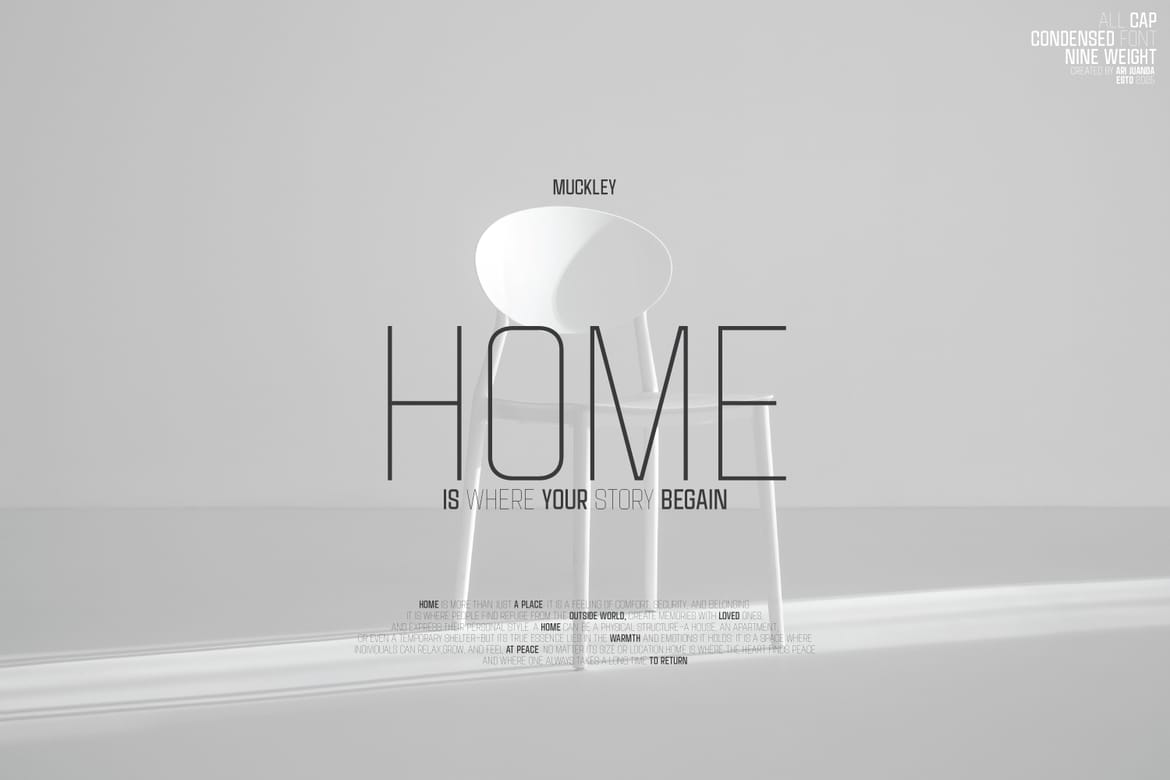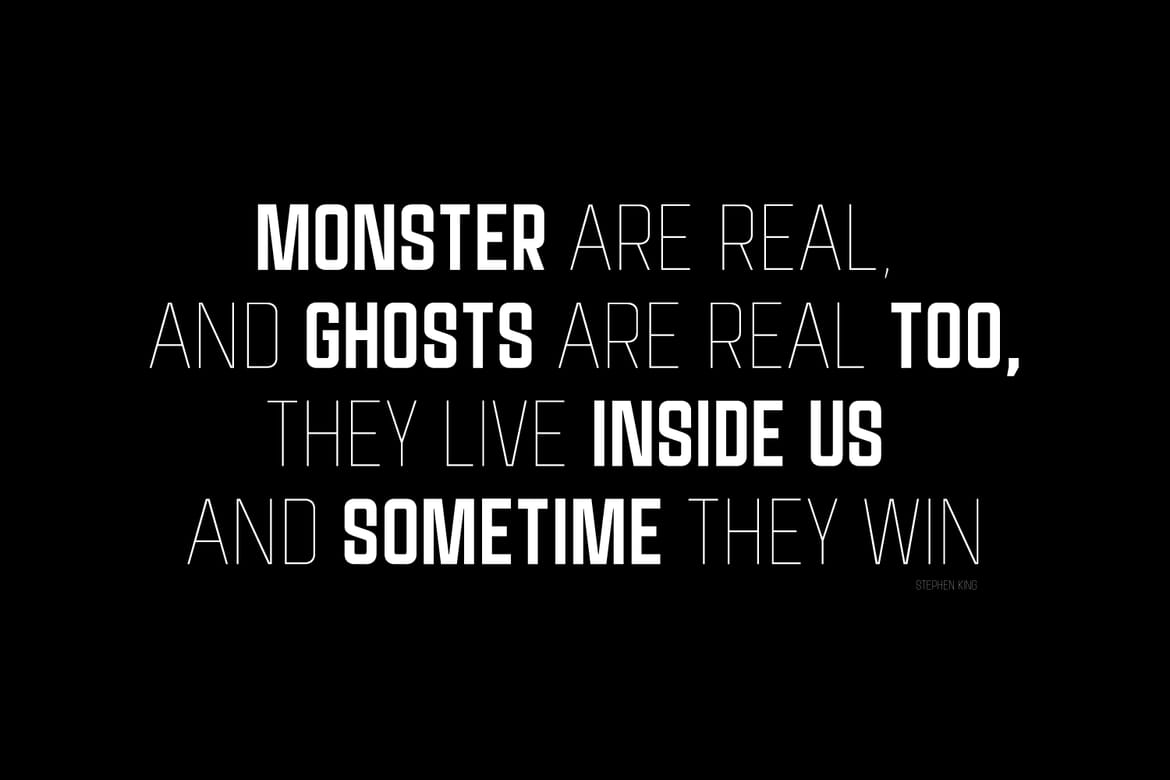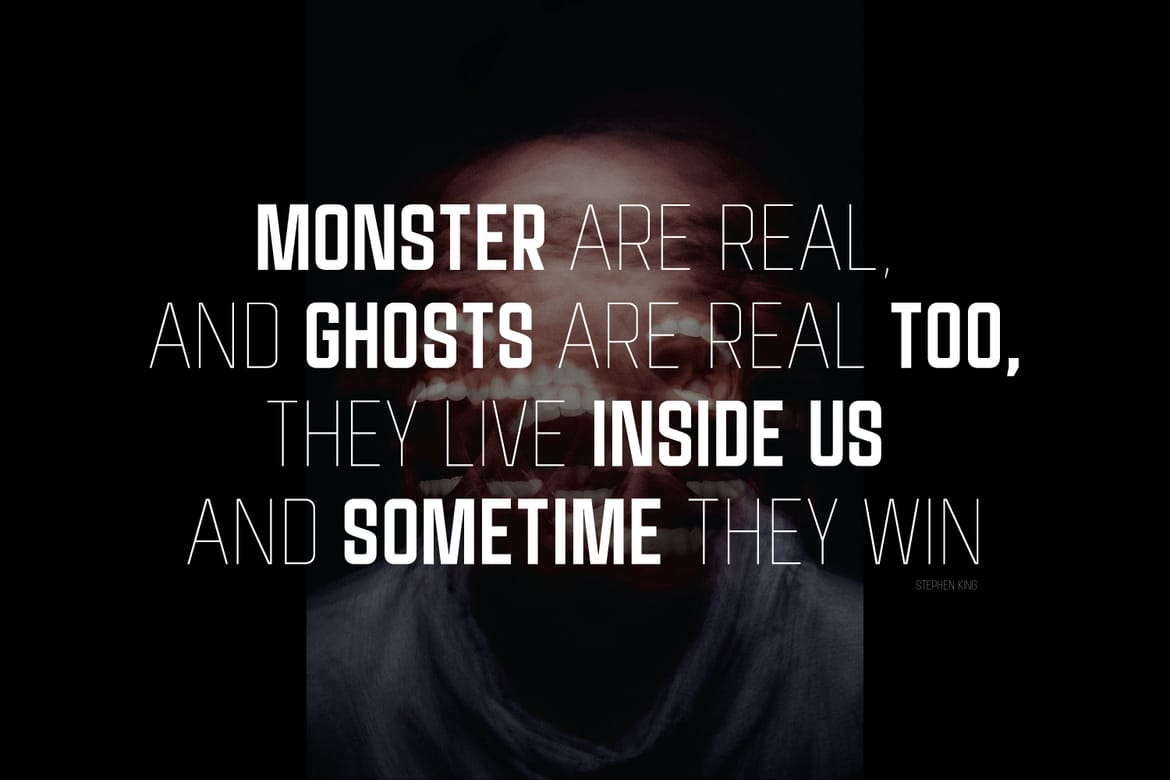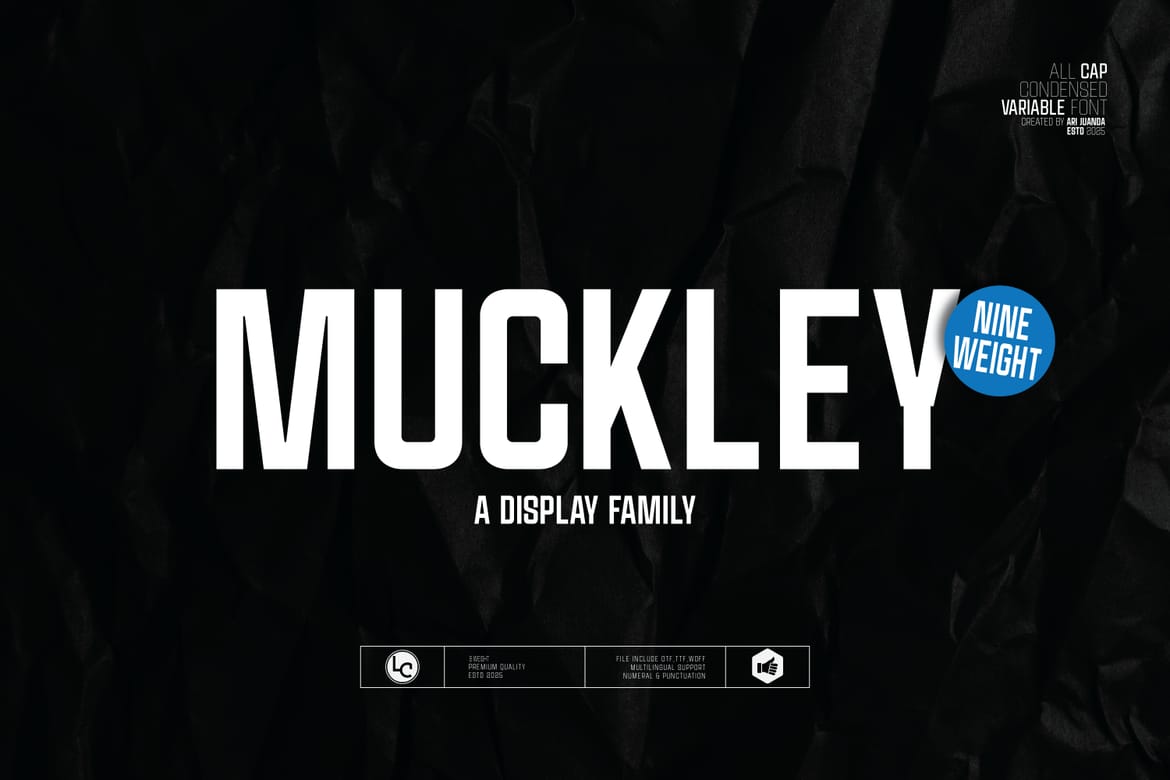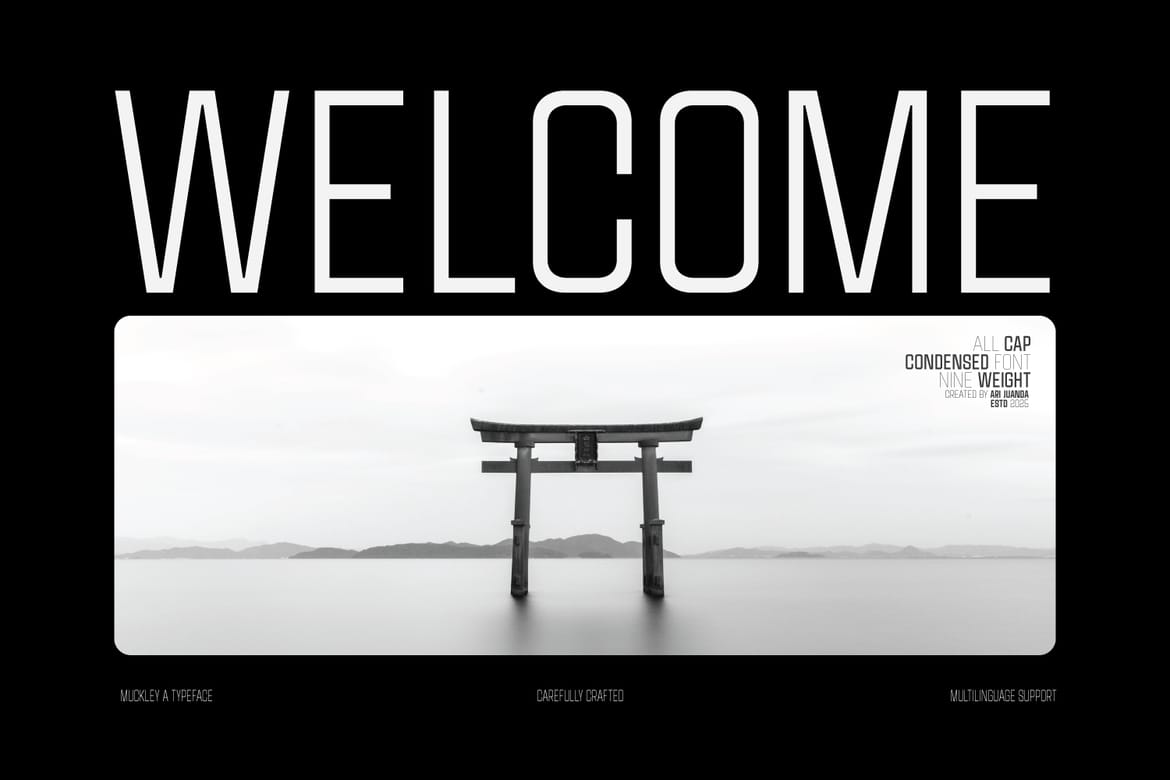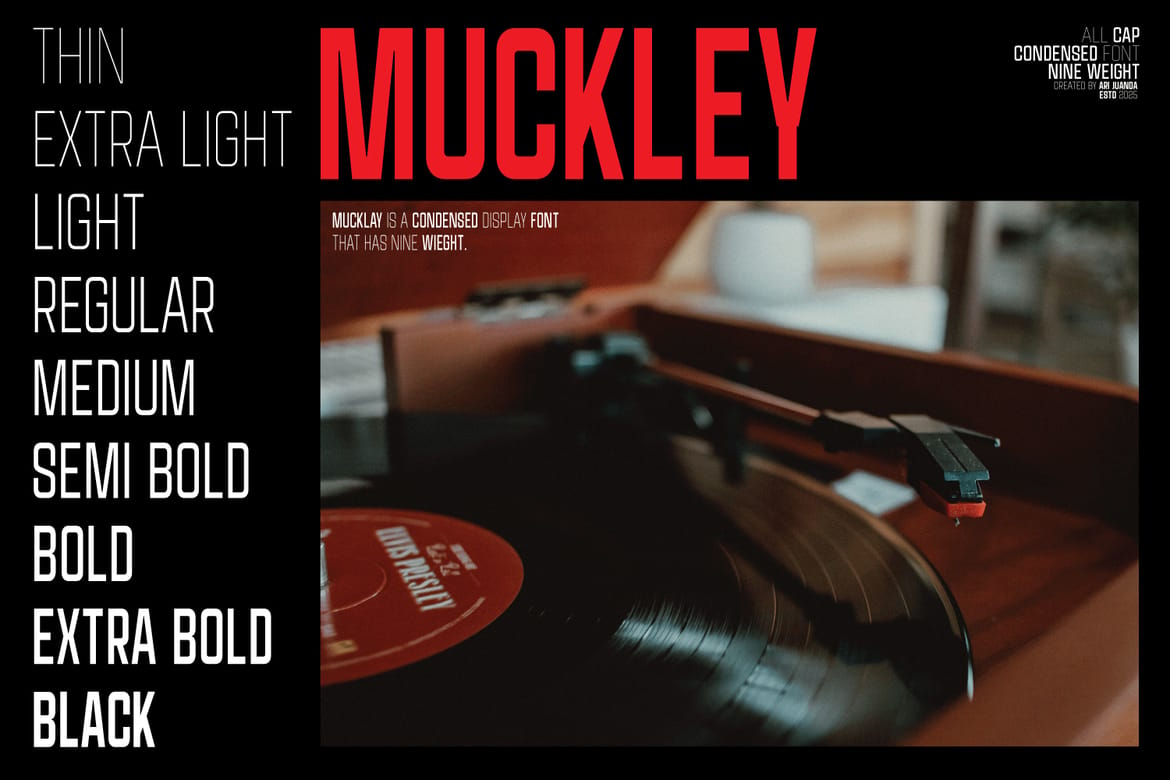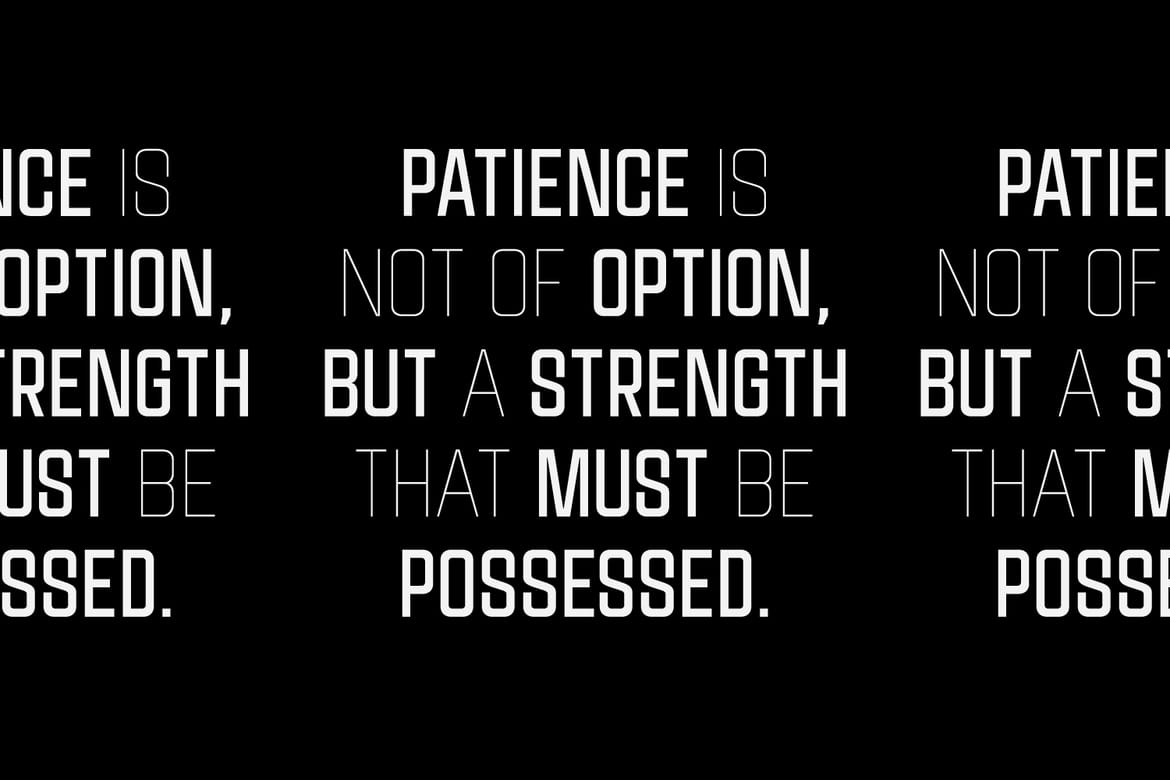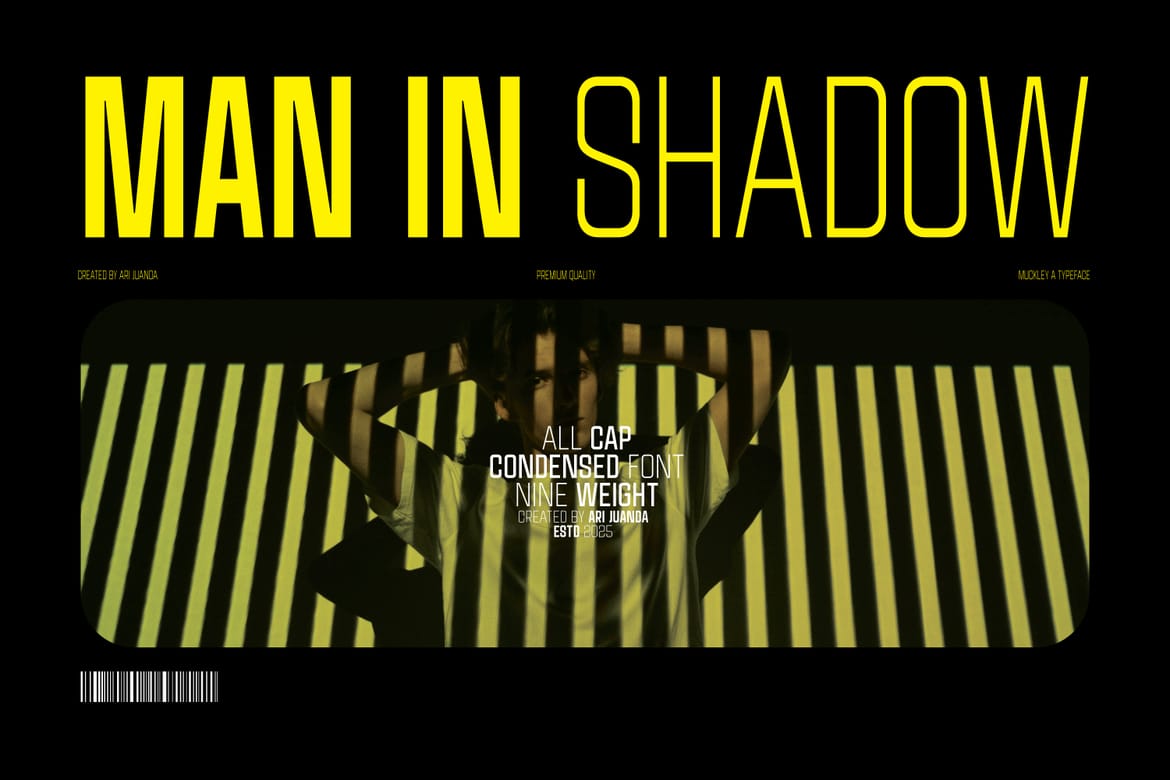
Muckley A Condensed Display font
Muckley Display is a condensed font family, inspired by sci-fi movie titles, this font comes with nine weights that are enough to complete your design needs, this font is designed quite firmly and gives a strong impression with a modern touch.